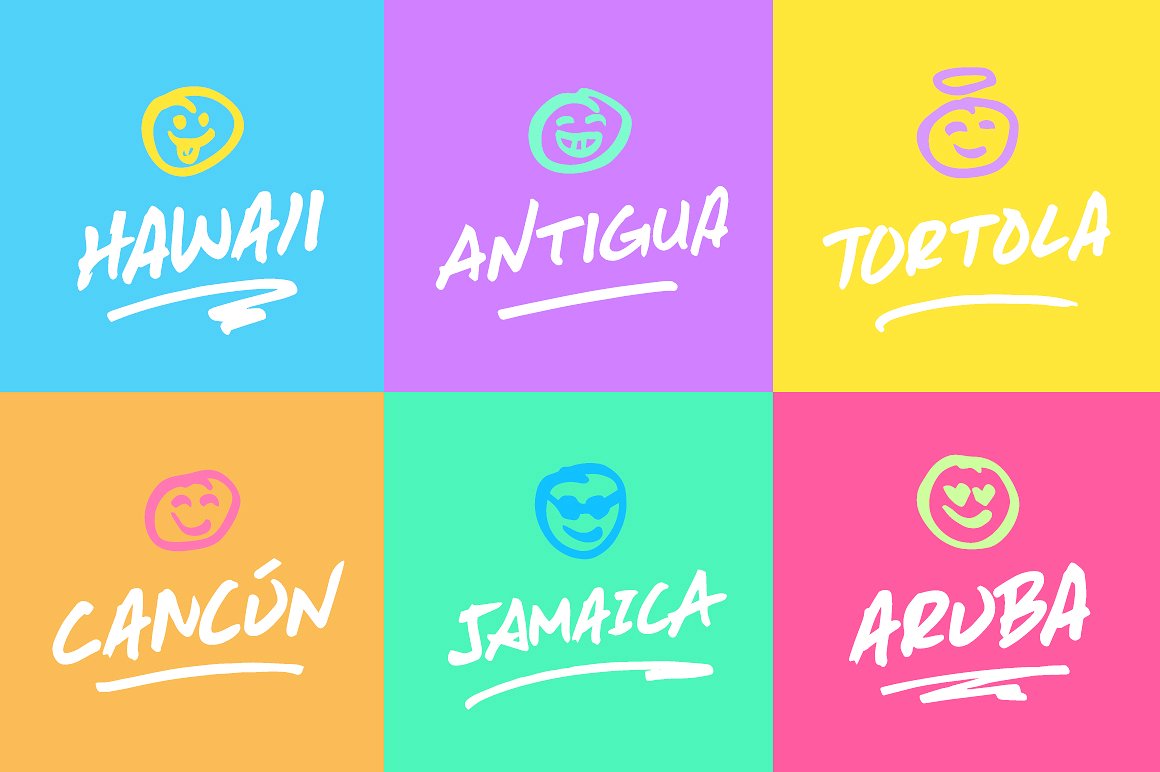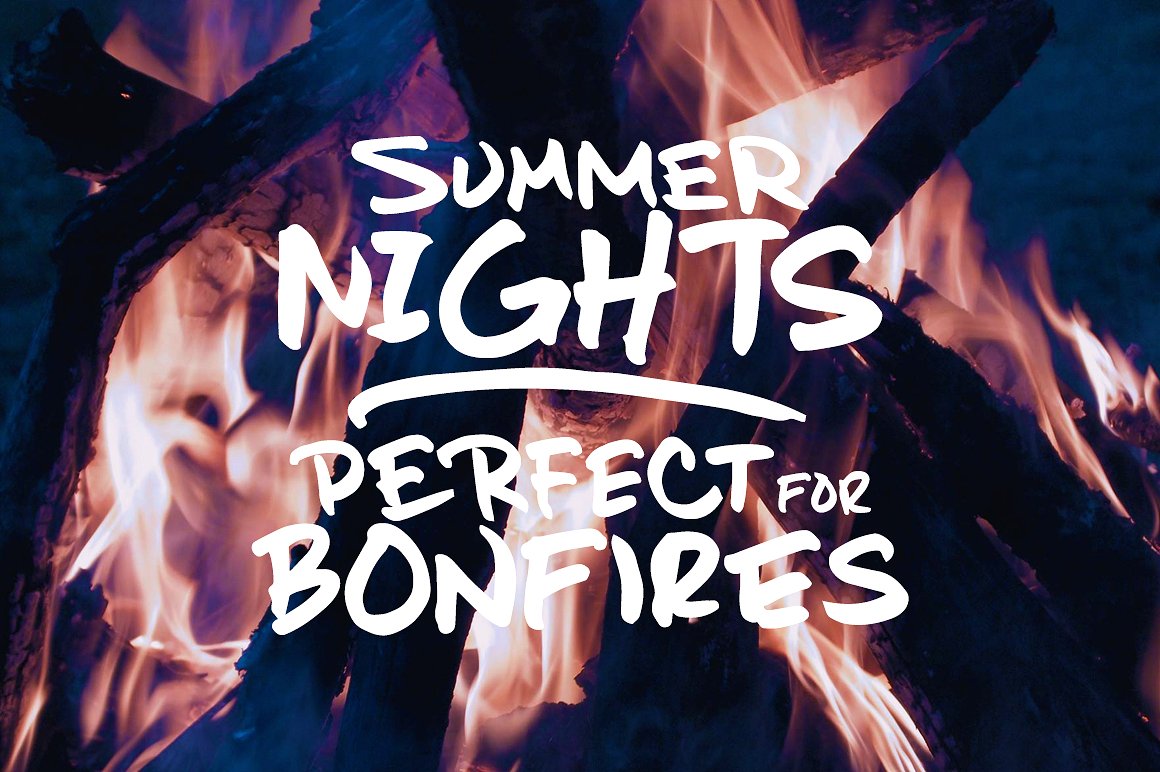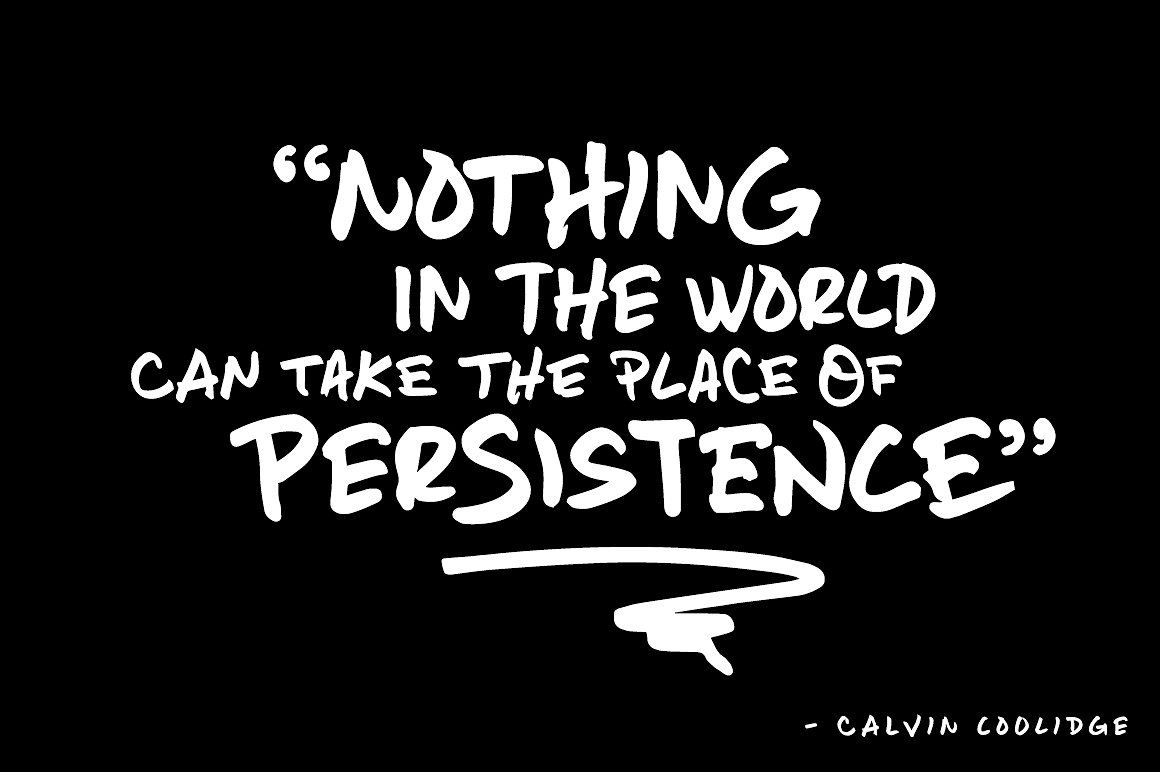
Moonshot Font Family
Introducing Moonshot. It is designed by Scott Howard, this is a premium font, are sold on creativemarket, but it was great, it is free today for download. Moonshot, the edgy all caps font you have been looking for. With multiple styles and extras, Moonshot makes it easy to create expressive type that truly feels hand-drawn ( …the letters were hand-drawn after all). It includes EMOJIS, allowing you to design with emojis and typographic characters in a stylistically cohesive way.